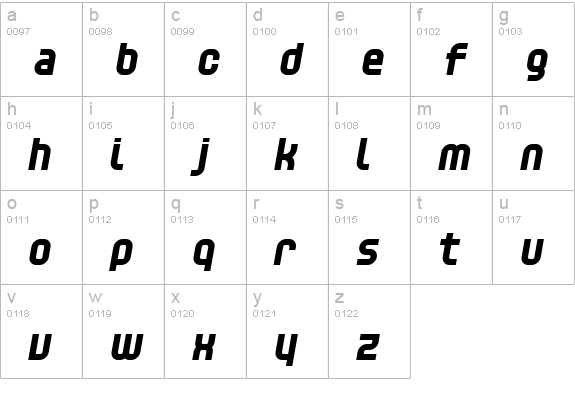
Unisect BlackOblique font is a stunning display typeface that exudes elegance and modernity. With its sleek and sophisticated design, it captures attention and adds a touch of sophistication to any project. This unique font features a captivating oblique angle that adds a dynamic and edgy flair to your text. Its bold weight and sharp, angular letterforms make it perfect for creating eye-catching headlines, logos, and branding materials. The Unisect BlackOblique font offers a wide range of versatility, making it suitable for various design purposes. Whether you're designing a fashion magazine, a luxury brand advertisement, or a cutting-edge website, this font will elevate your design to new heights. One of the best parts about Unisect BlackOblique font is that it is completely free to use. You can easily download it from FontsMarket.com, a leading online platform for high-quality fonts. The free availability of this font allows designers and creatives to unlock their full potential without any financial constraints. So, if you're looking for a font that combines modernity, elegance, and a touch of uniqueness, Unisect BlackOblique is the perfect choice. Download it for free at FontsMarket.com and embark on a design journey that will captivate your audience and leave a lasting impression.